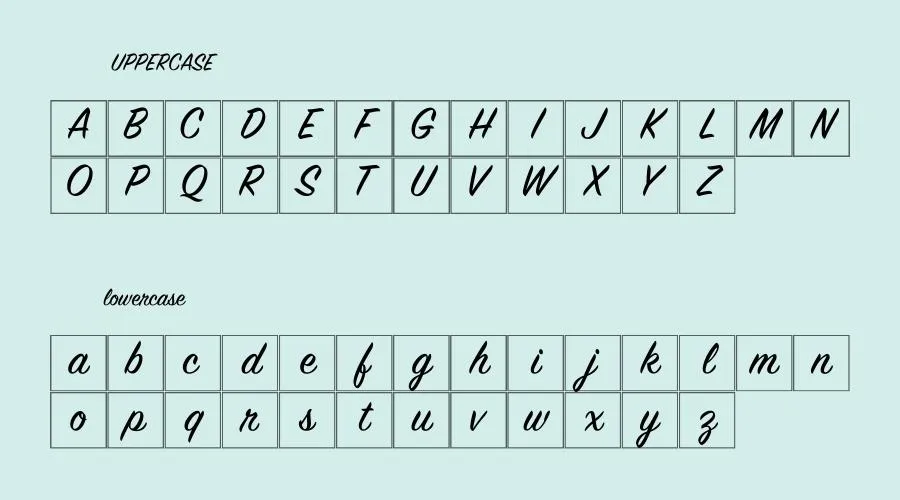
About Sign Painter Font
We will present to you an amazing handwritten typeface, known as the name of Sign Painter Font. This texture was developed by a well-known typographic American designer (Burn 1951) named John Downer with Roxy, Old Style, Brothers, and Triplex Italic.
This typeface contains multiple styles and weights such as bold, italic, semi-bold, and Regular. It includes unique textures like uppercase letters, lowercase letters, symbols, digits, and many more.